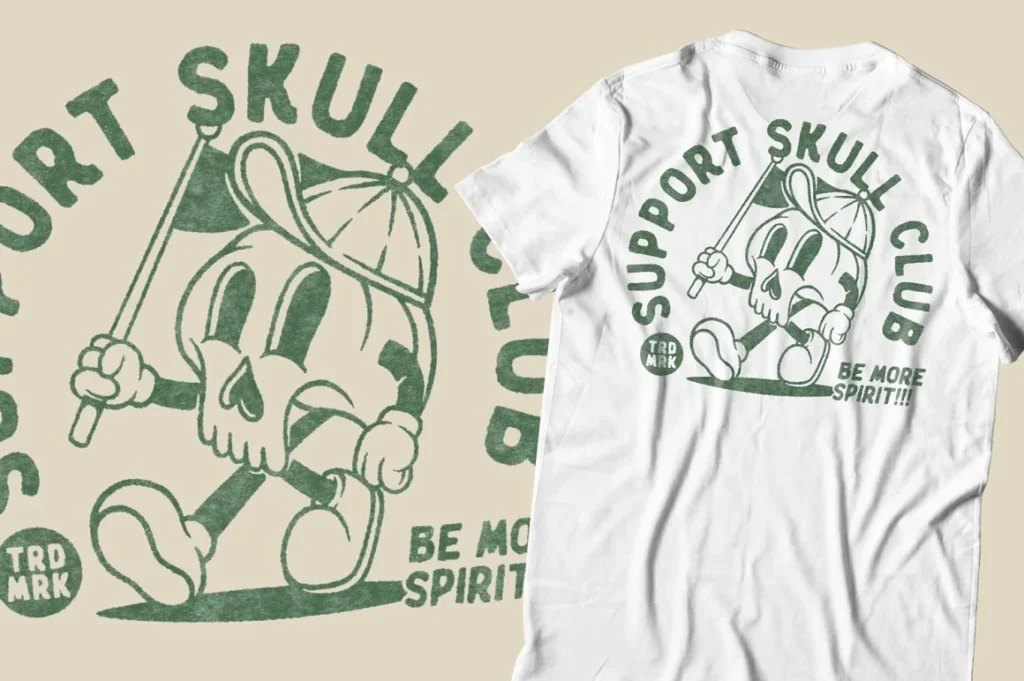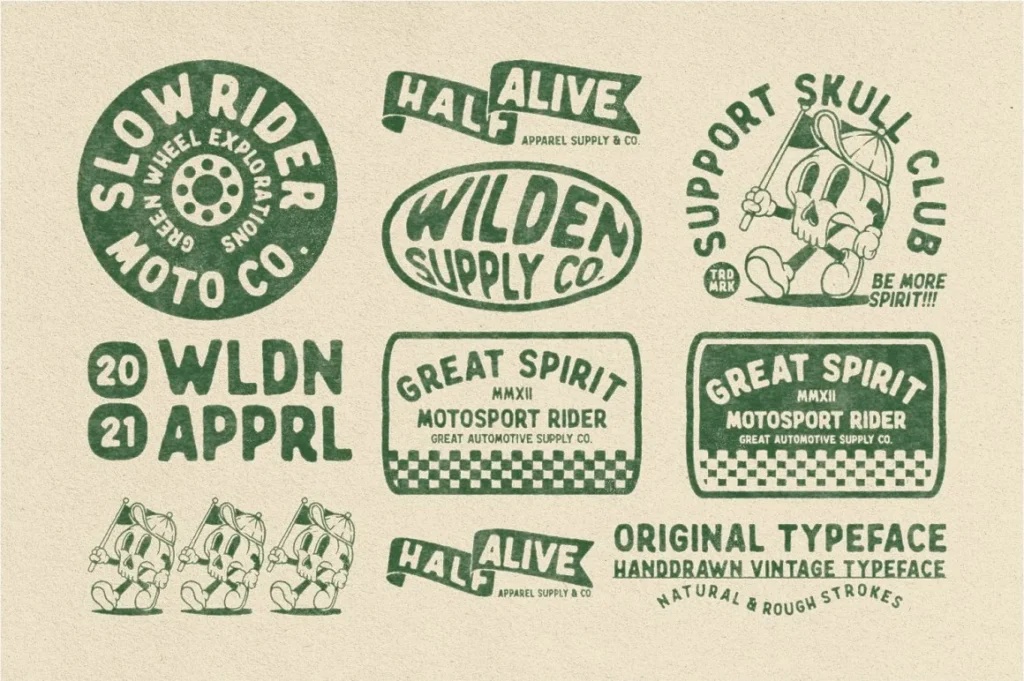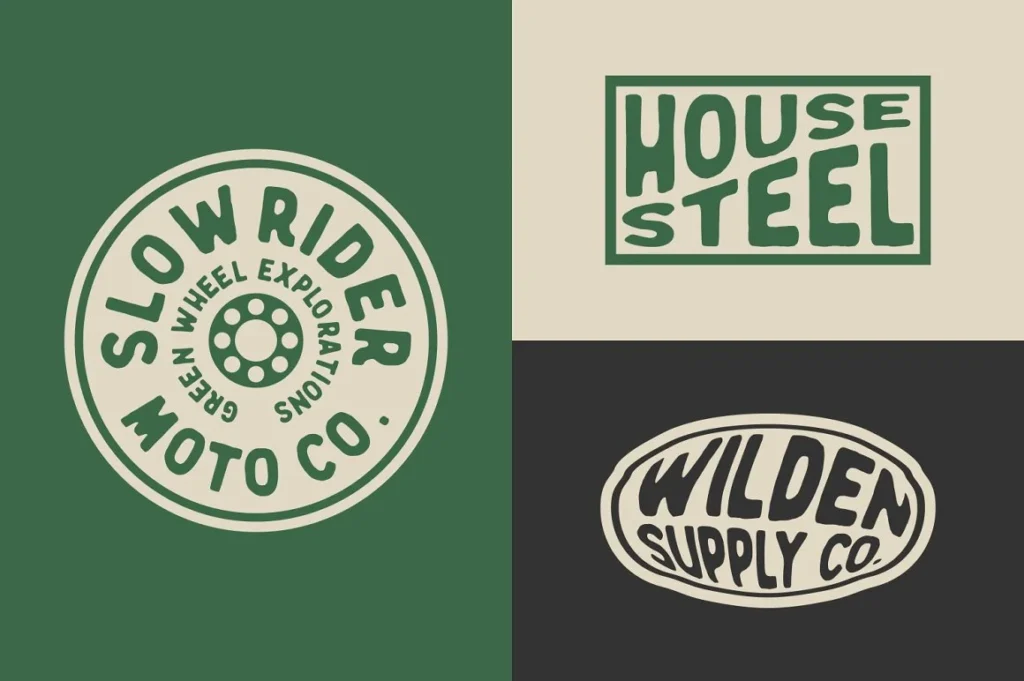
Wilden & Handdrawn Vintage Typeface into the world from a motivating, one-of-a-kind presentation. This textual style gives a vibe of rare, exemplary, old, and in view of high quality.
Reasonable for any realistic plans, for example, marking materials, shirts, print, business cards, logos, banners, shirts, photography, quotes, and so on.